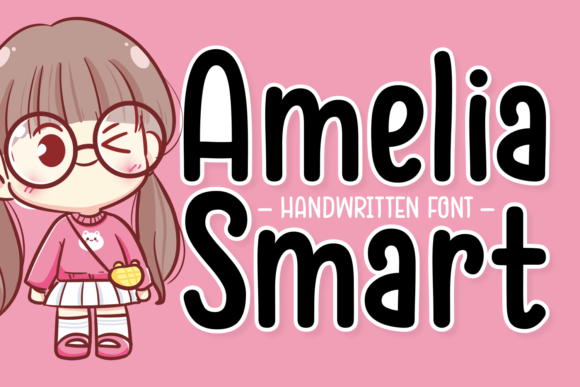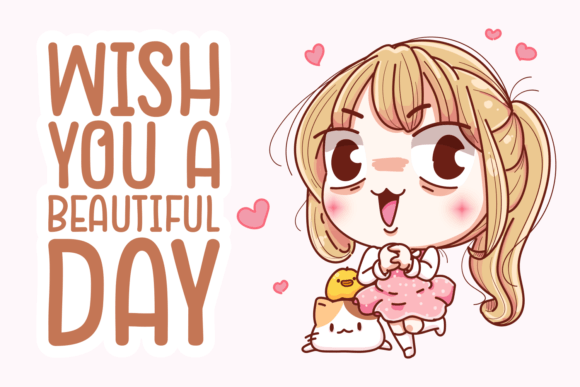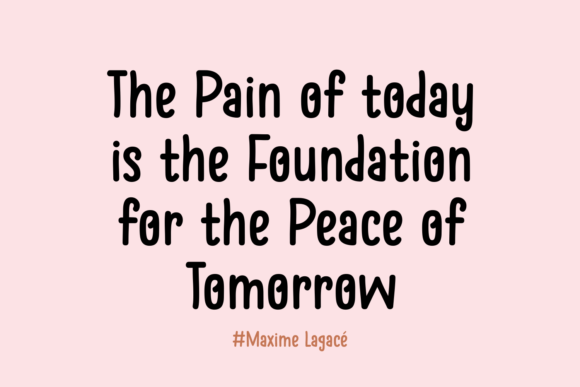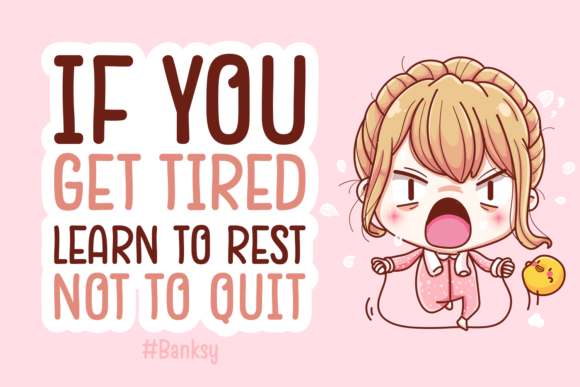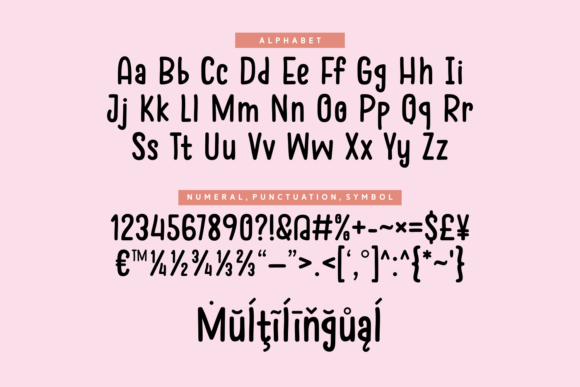
Amelia Smart
About Amelia Smart
Amelia Smart is a childish, easy-to-spot script font that aims to convey a feeling of cheerfulness. Whether you’re using it for crafts, cartoon-related designs, presentations, or making greeting cards, this font will slowly-slowly become your favorite go-to font.